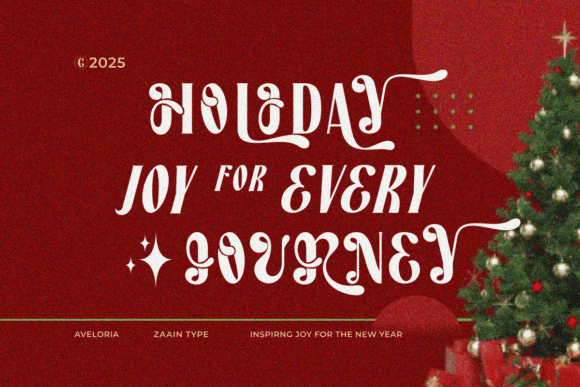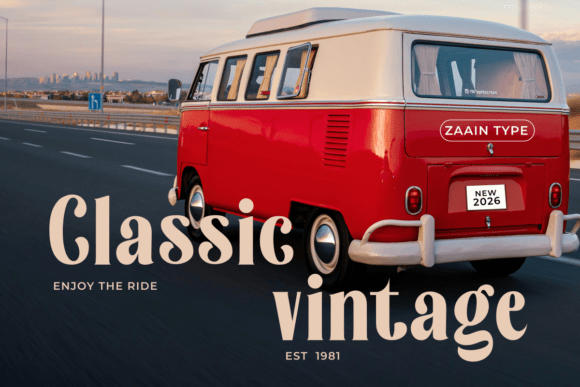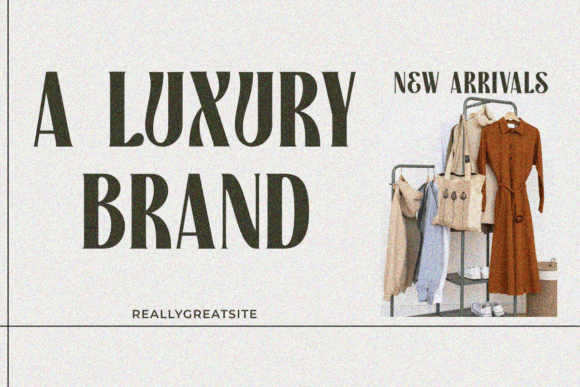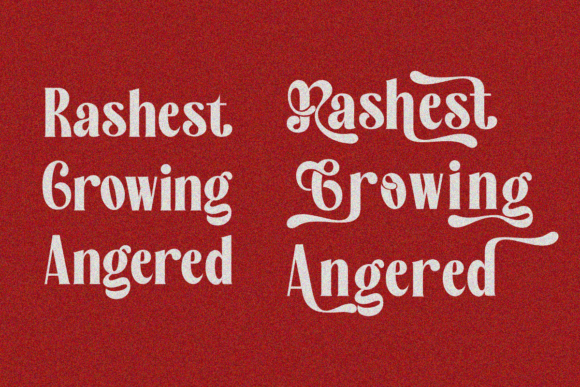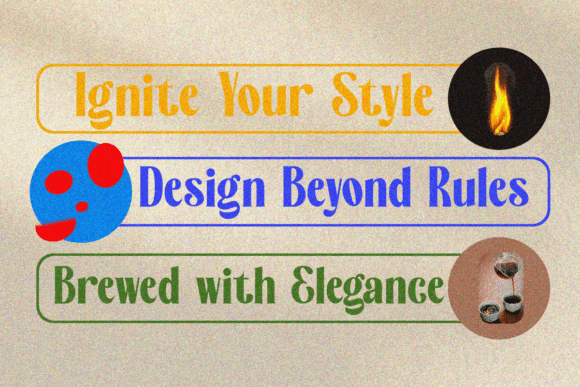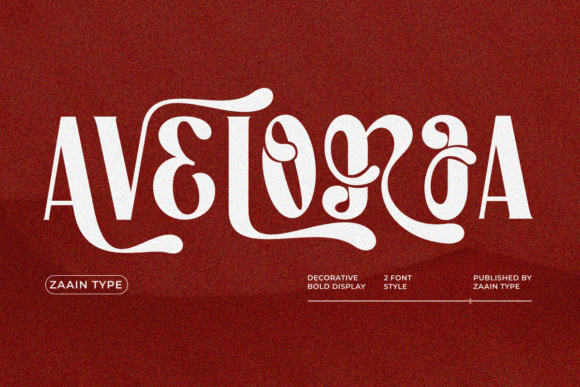
Introducing Aveloria Font: Elevate Your Designs with Timeless Elegance
In the world of typography, a font can make or break a design. For designers and crafters seeking a refined and sophisticated look, Aveloria Font is the perfect solution. This modern serif typeface seamlessly blends classic structure with a touch of contemporary luxury, making it an excellent choice for premium branding, editorial layouts, beauty packaging, and more.
The Art of Elegance: Aveloria’s Design Philosophy
Aveloria’s design is rooted in the pursuit of elegance and readability. Each character is carefully crafted with balanced proportions, subtle contrast, and graceful curves that create an elegant presence without compromising legibility. The font’s forms appear bold yet refined, making it perfect for headlines that need sophistication or text that conveys confidence.
Clean Serifs and Careful Details: The Mark of Timelessness
One of the defining features of Aveloria is its clean serifs and carefully controlled details. These elements work together to deliver a timeless aesthetic that never goes out of style. Whether you’re designing a luxury brand, a fashion magazine, or a beauty product, Aveloria’s classic yet modern look will elevate your project to new heights.
Versatility at Its Best: Aveloria’s Style Options
Aveloria Font comes with a range of styles that support creative flexibility, making it an excellent choice for designers pursuing high visual quality. With multiple weights and styles to choose from, you can use Aveloria for a wide range of applications, from headlines and titles to body text and captions.
Perfect for Premium Branding and Editorial Layouts
Aveloria’s elegant and refined design makes it perfect for premium branding and editorial layouts. Use it to create stunning headlines, titles, and captions that convey sophistication and luxury. Its clean serifs and classic structure also make it an excellent choice for body text, ensuring that your content is easy to read and understand.
Beauty Packaging and Beyond: Aveloria’s Versatility Shines
Aveloria’s versatility extends beyond branding and editorial layouts. Its elegant design makes it perfect for beauty packaging, where a refined and sophisticated look is essential. Use Aveloria to create stunning labels, packaging, and marketing materials that showcase your brand’s luxury credentials.
What Makes Aveloria Font Stand Out?
• Modern serif typeface: Aveloria blends classic structure with a touch of contemporary luxury.
• Elegant and refined design: Perfect for premium branding, editorial layouts, and beauty packaging.
• Clean serifs and careful details: Deliver a timeless aesthetic that’s both classic and modern.
• Multiple styles and weights: Support creative flexibility and high visual quality.
• Excellent readability: Balanced proportions, subtle contrast, and graceful curves ensure easy reading.
Conclusion: Elevate Your Designs with Aveloria Font
In conclusion, Aveloria Font is the perfect choice for designers and crafters seeking a refined and sophisticated look. Its modern serif design, elegant and refined aesthetic, and versatility make it an excellent choice for a wide range of applications. Whether you’re working on premium branding, editorial layouts, beauty packaging, or any design project that requires a touch of luxury, Aveloria Font is the perfect solution.
Font Name Aveloria Font
Author zaaintype